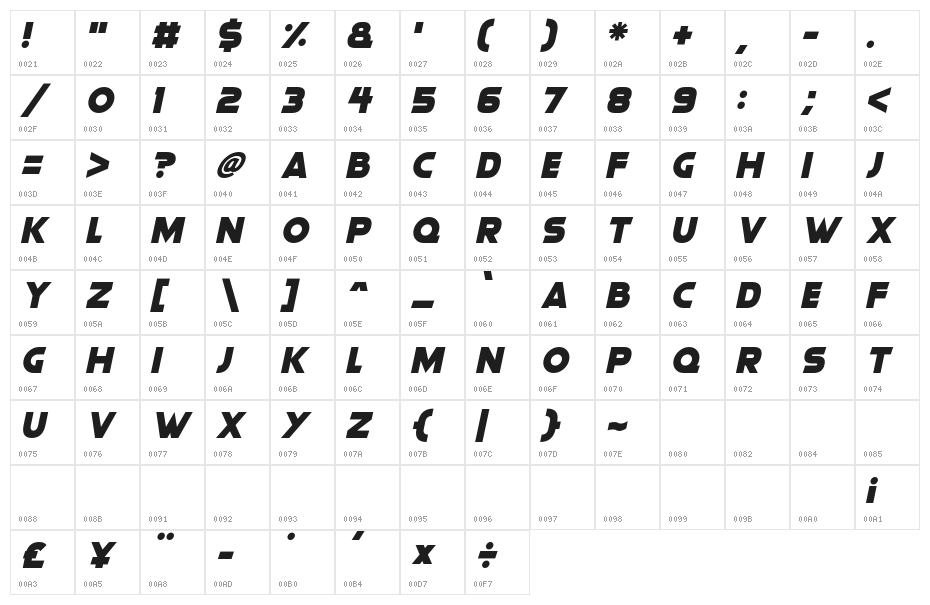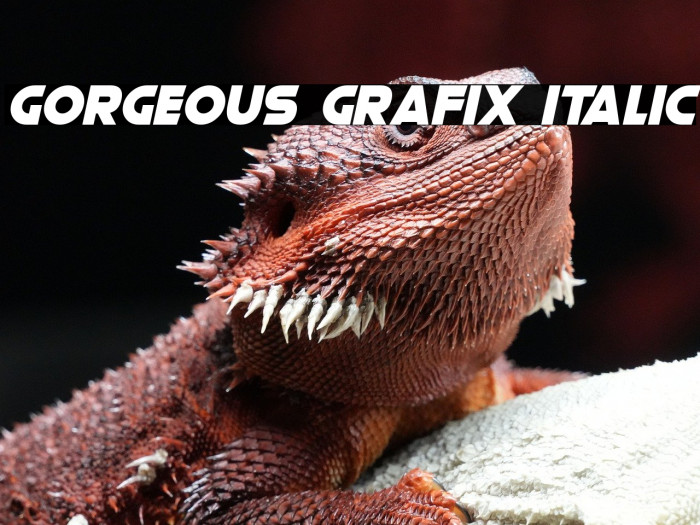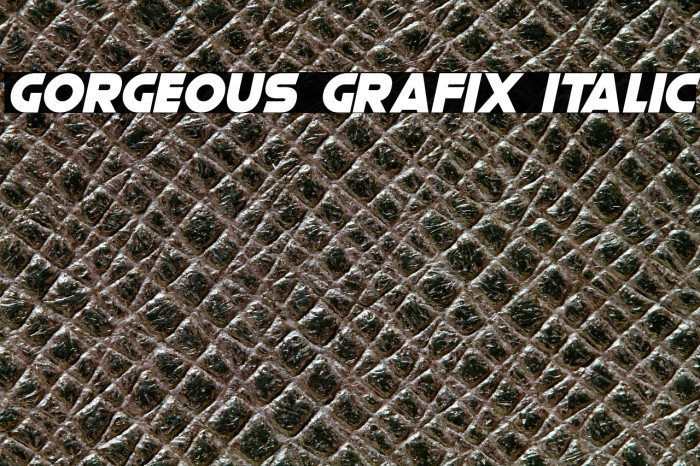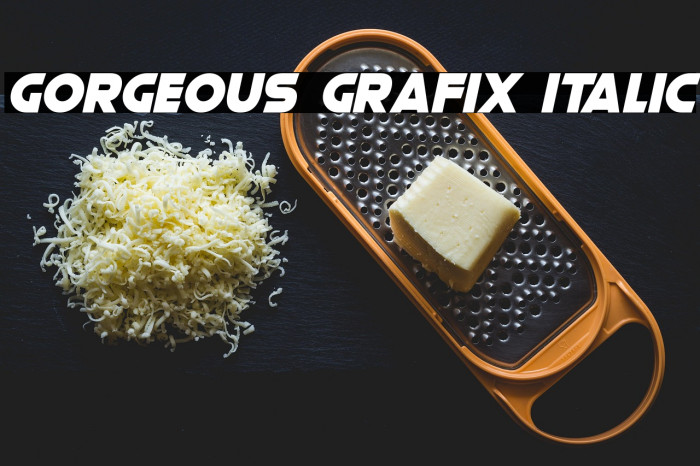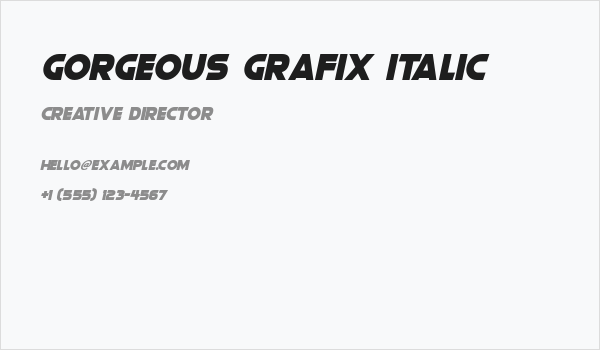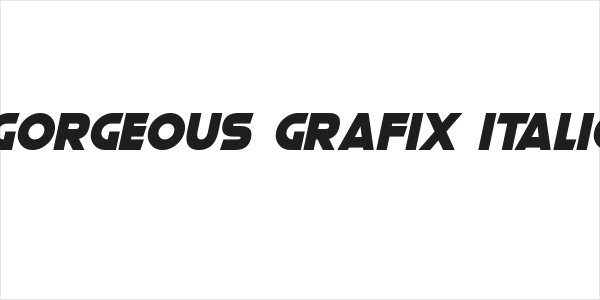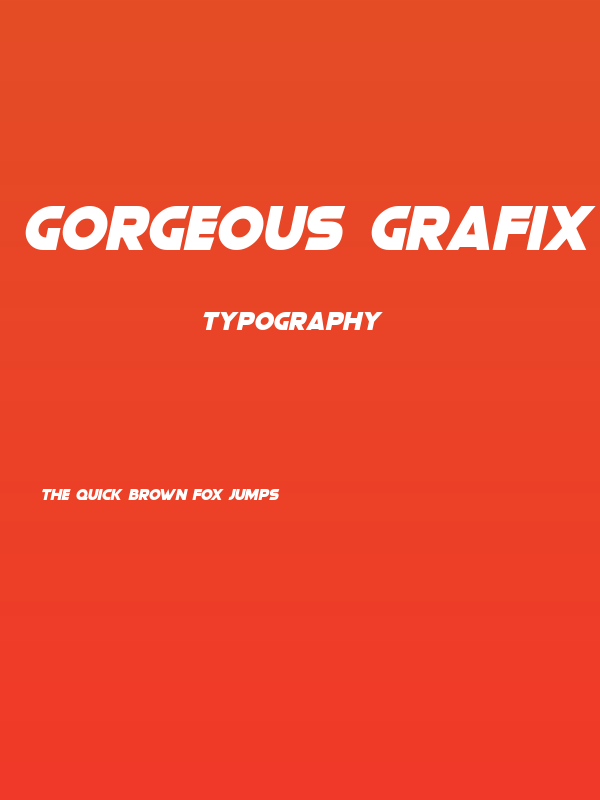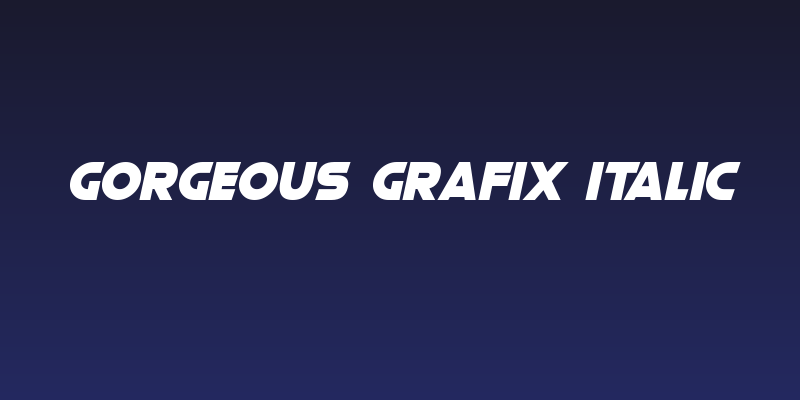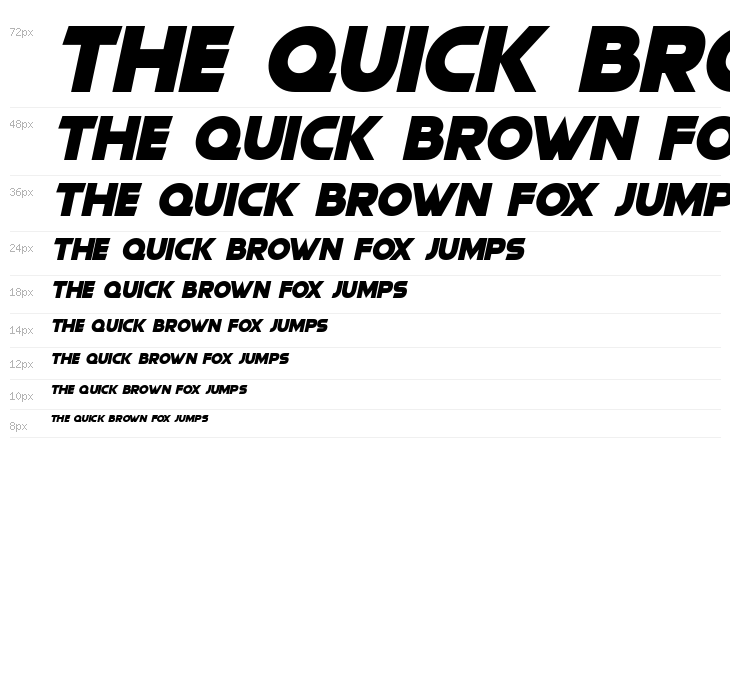
Gorgeous Grafix Italic Font
Gorgeous Grafix Italic Description
This font features a bold and dynamic italic style, characterized by its strong geometric shapes and slanted orientation. The uppercase letters are robust and impactful, with a slight forward tilt that adds a sense of motion and energy. The lowercase letters maintain the same boldness, ensuring consistency across different text sizes. Numbers are equally bold, making them stand out clearly. Special characters are designed to match the overall aesthetic, providing a cohesive look. The font's thick strokes and angular cuts give it a modern and assertive appearance, suitable for making a strong visual statement.
| Proposed Projects | Ideal for sports branding, dynamic posters, modern advertisements, and any project needing a bold, energetic typeface. |